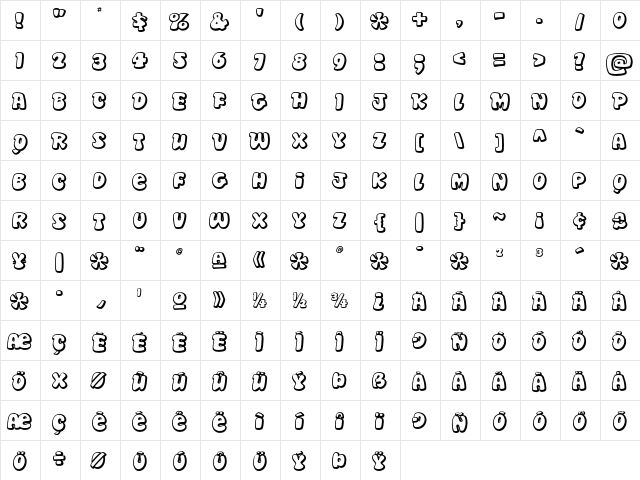
Disko Regular
| Foundry | Jess Latham |
| Designer | Jess Latham |
Design Context for Disko Typeface
Disko is a composed and adaptable typeface that performs quietly and consistently across a wide range of design contexts.